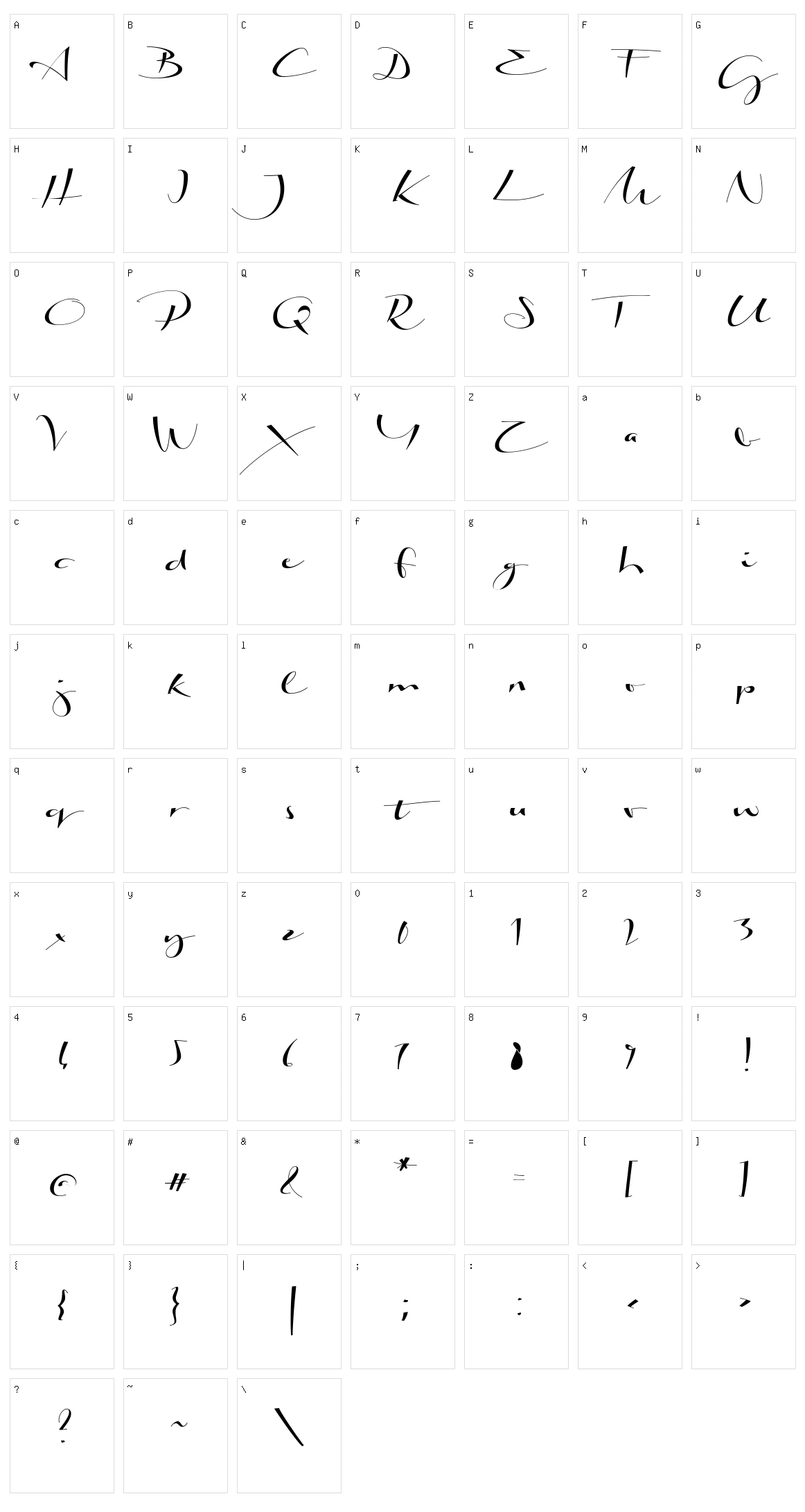
ÿþB I L O X I C A L L I G R A P H Y i s h e a v i e r v e r s i o n w i t h c a l l i g r a p h i c s t r o k e s o f a h a n d w r i t t e n f o n t o f m i n e c a l l e d "